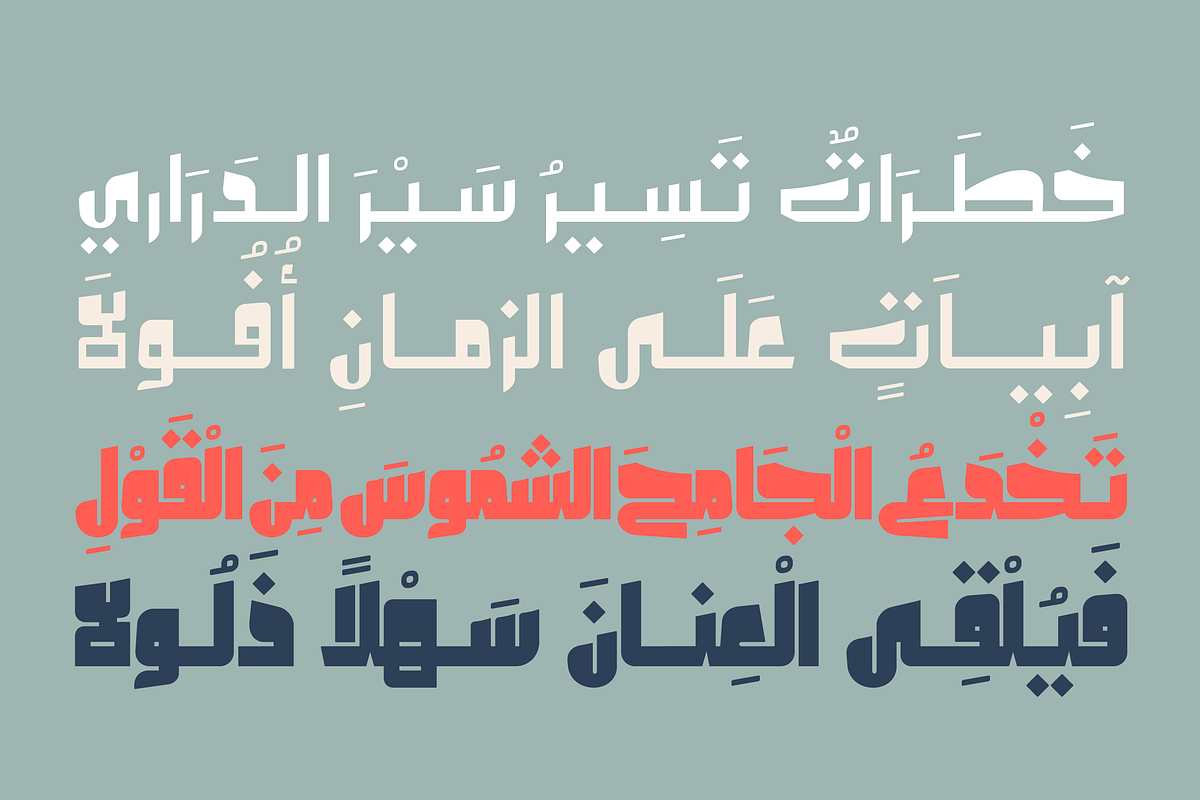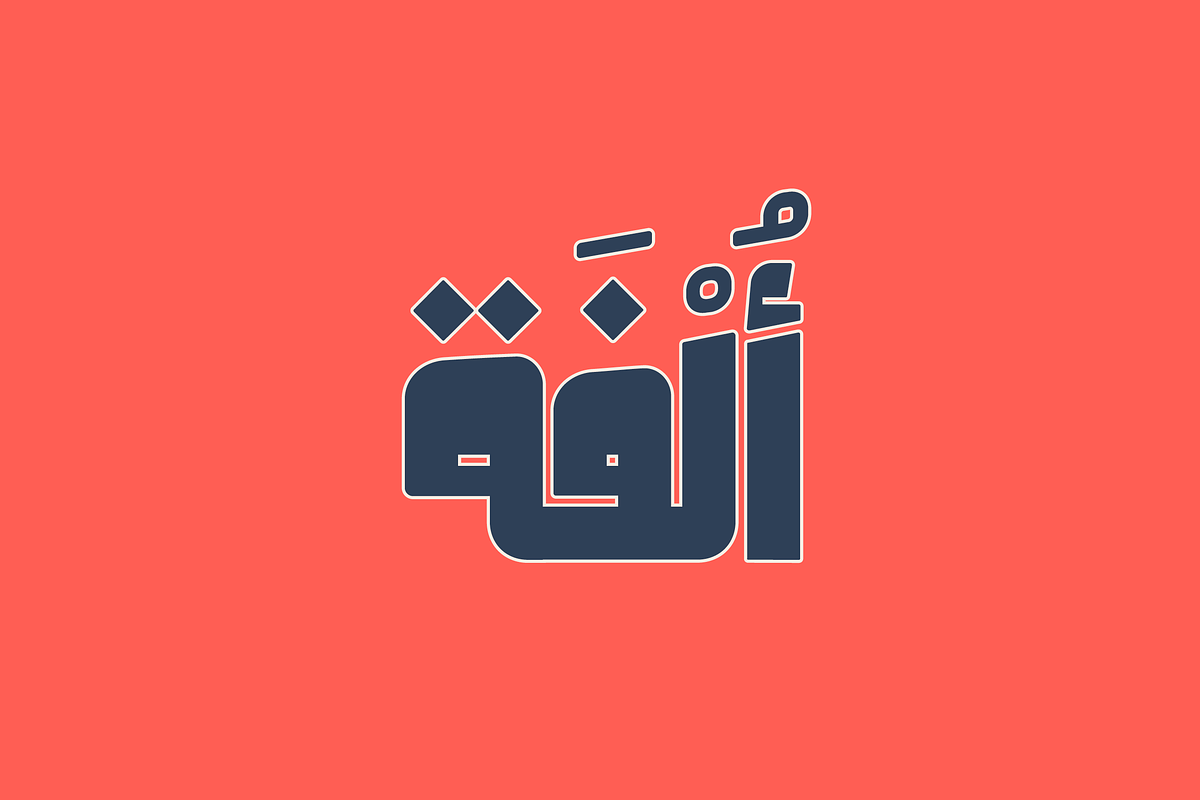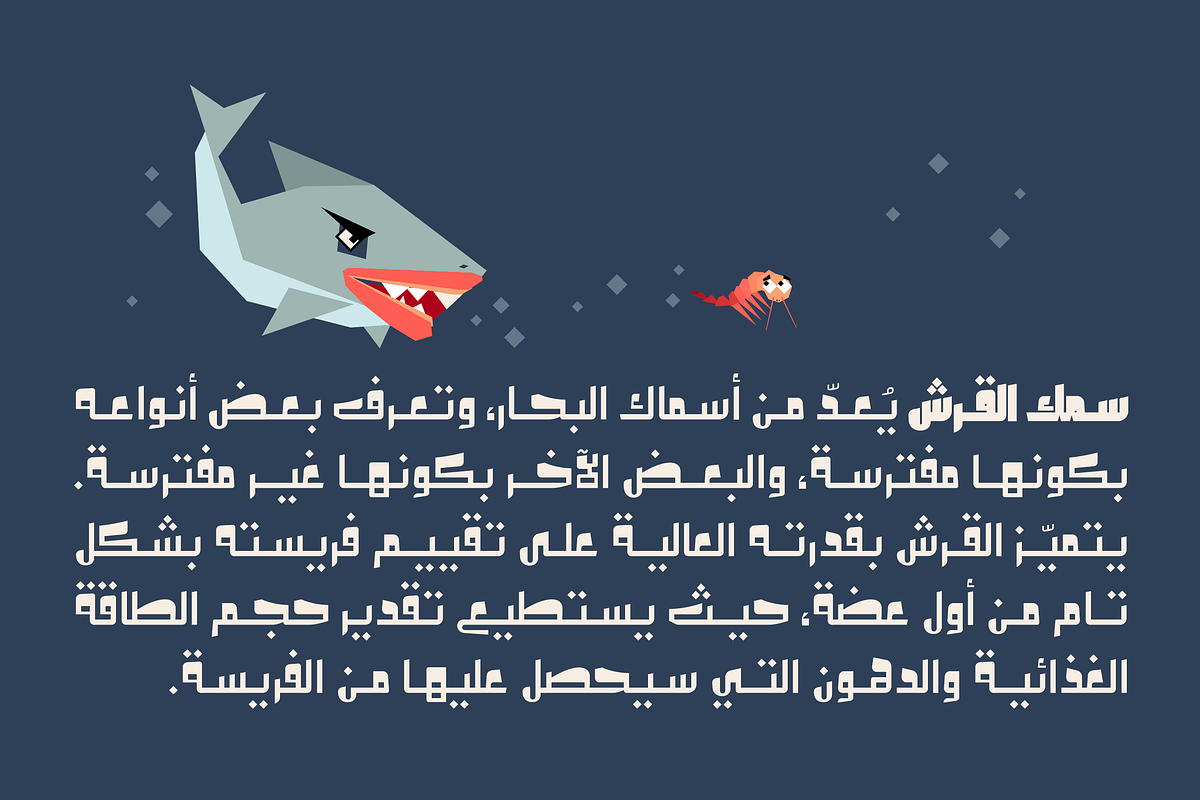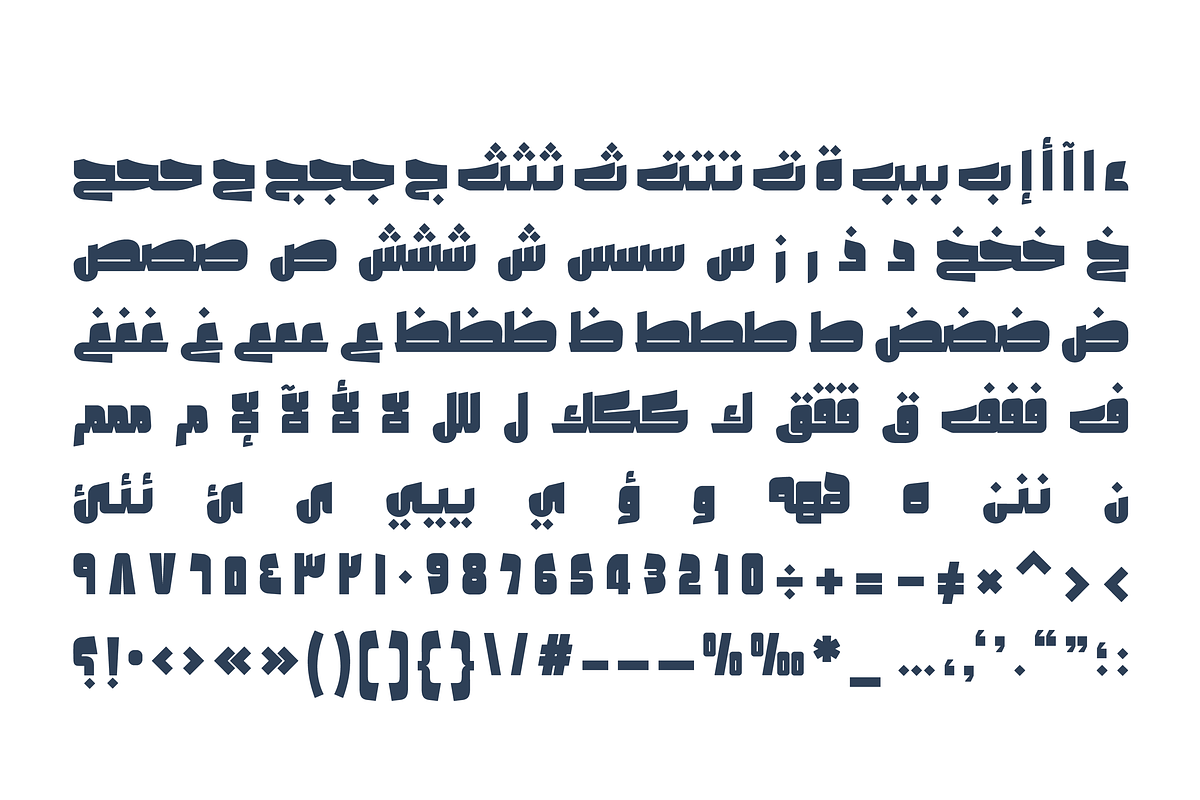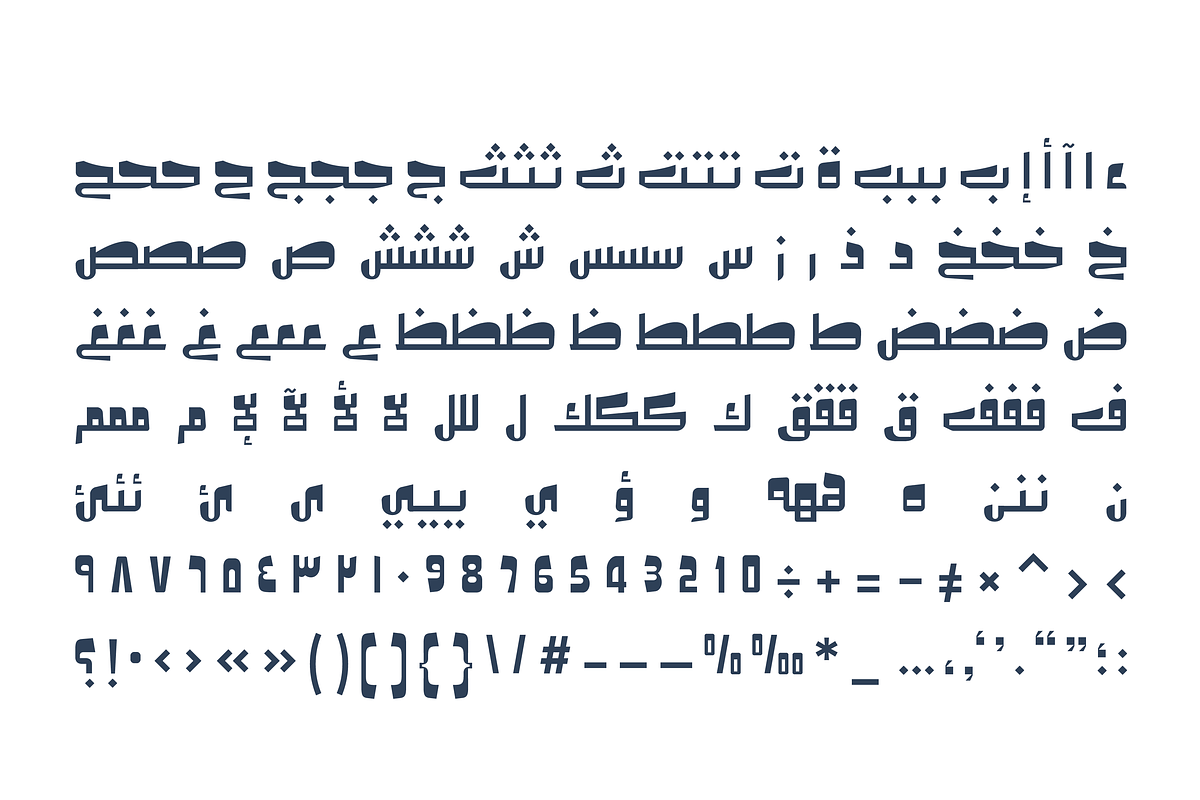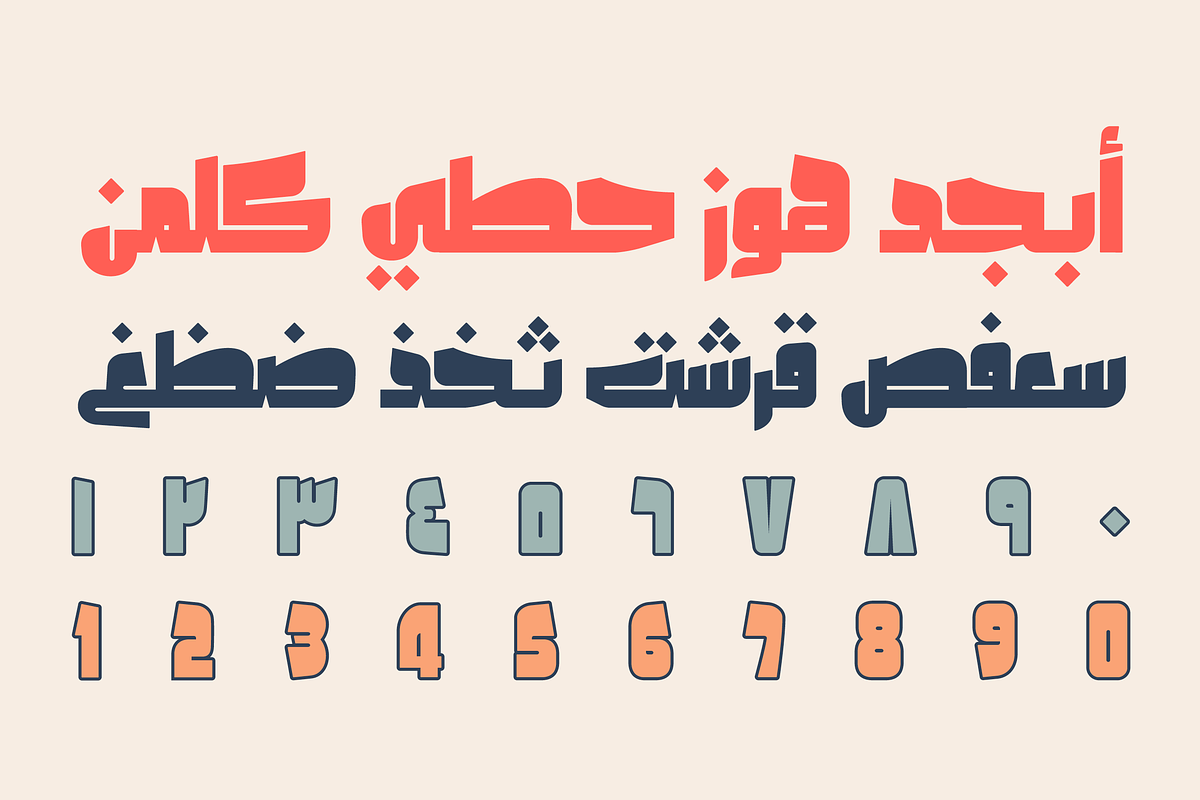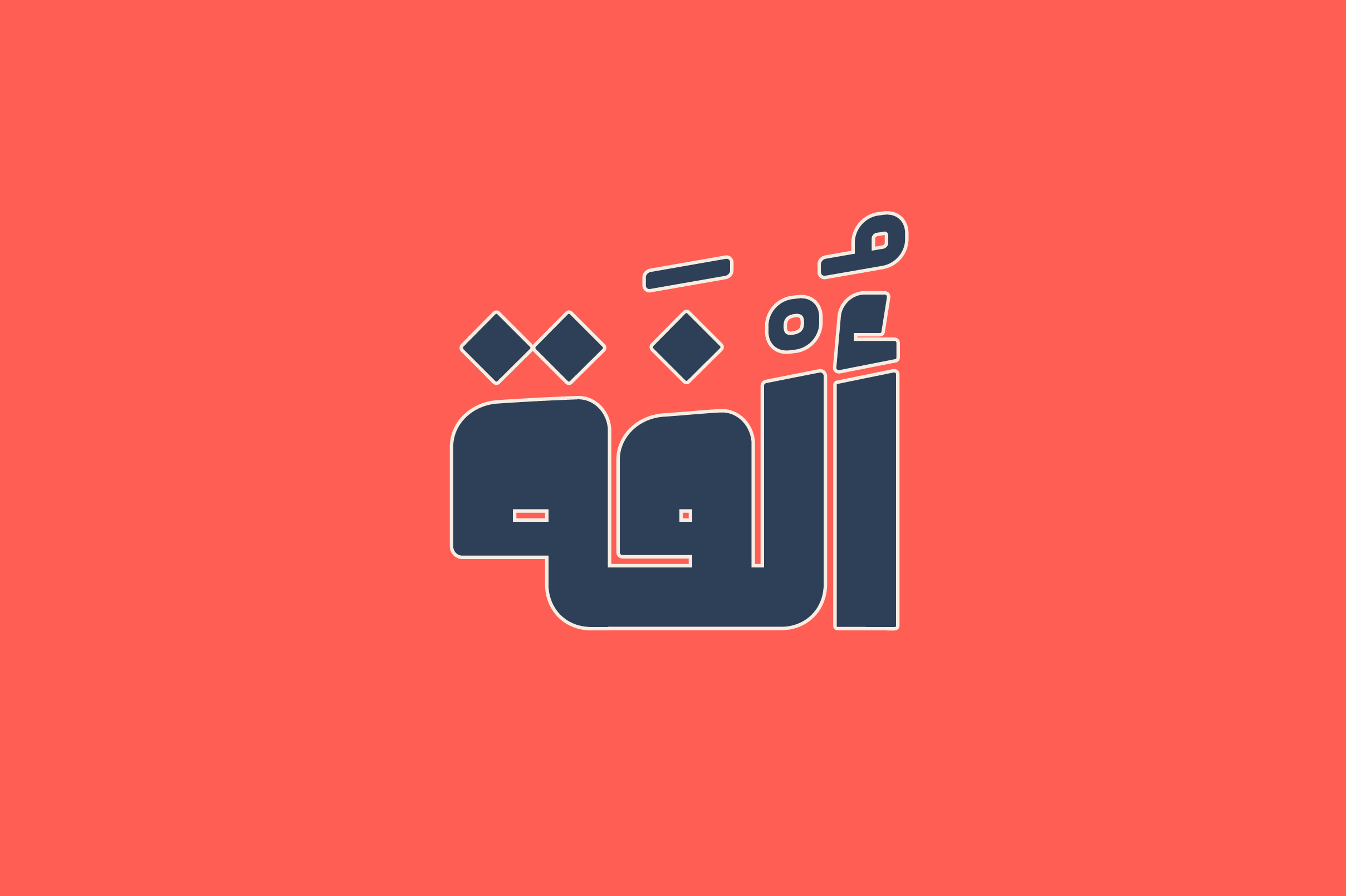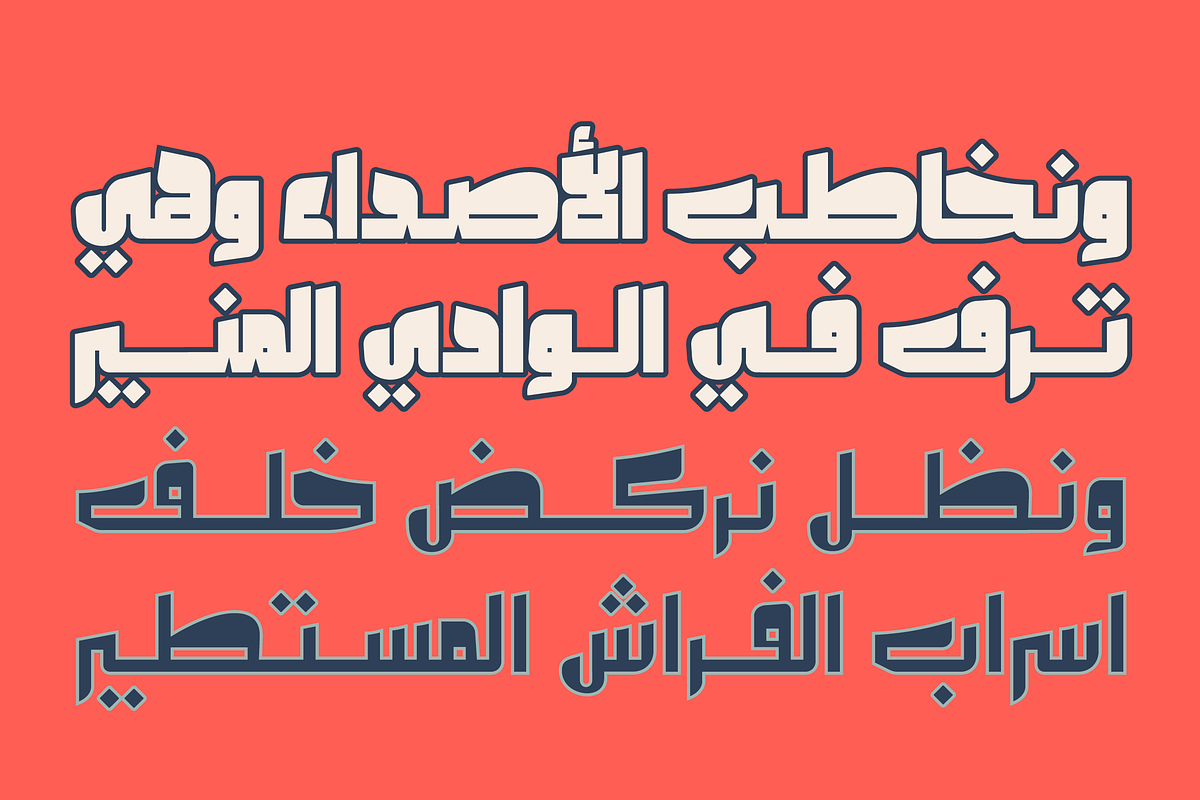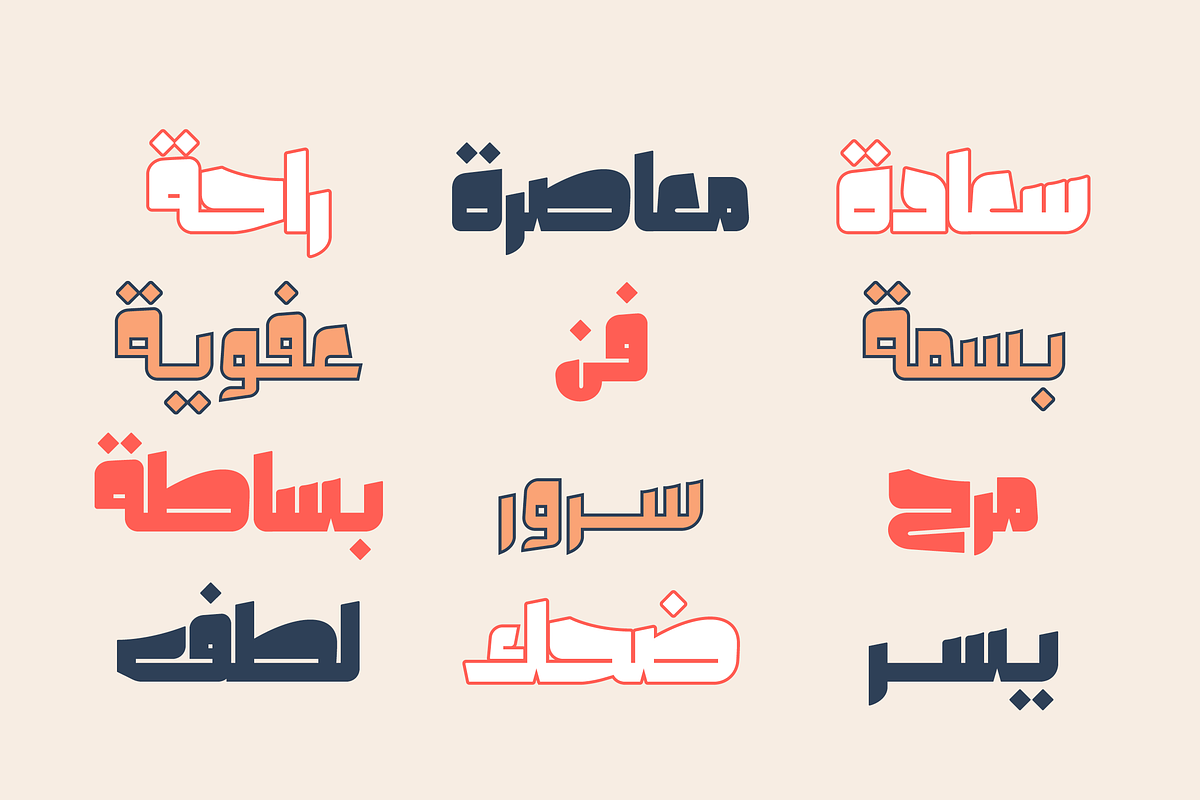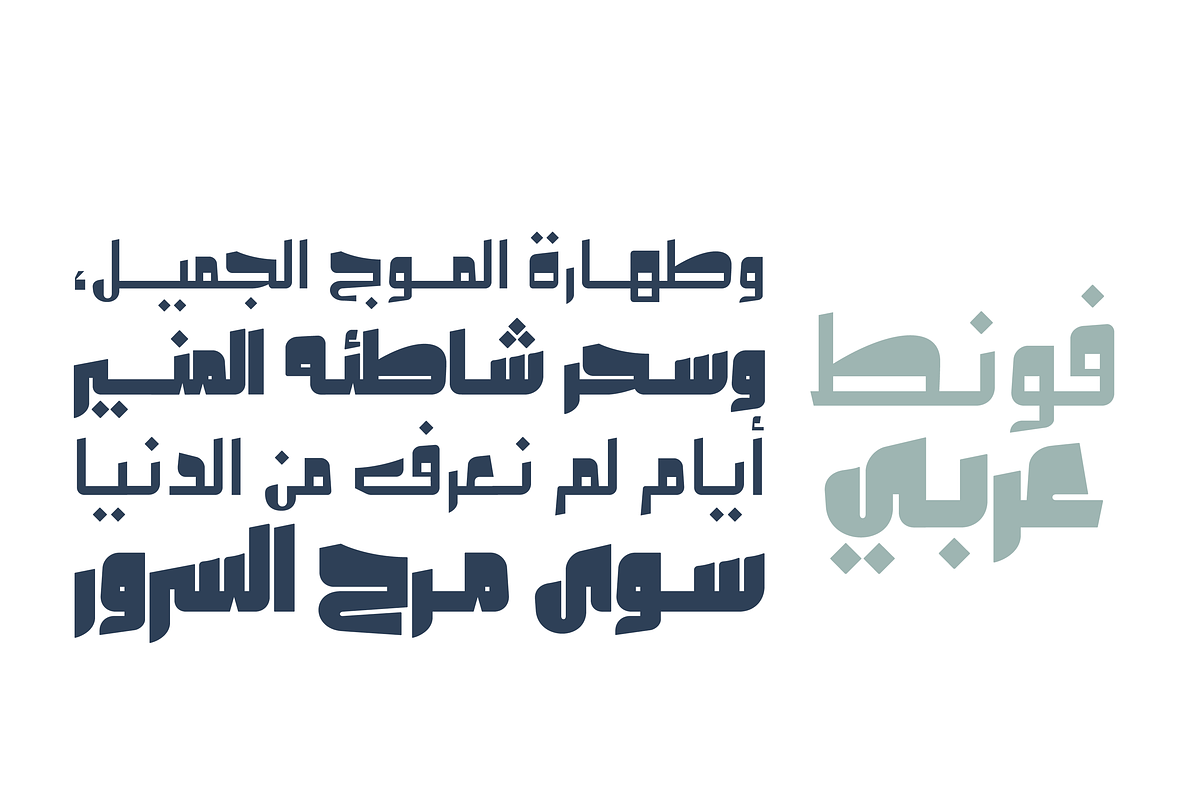
Olfah - Arabic Typeface
Olfah is an Arabic display font that features a friendly look with its casual style. The font suits advertising, infographics, web, print and creative headings. Olfah consists of two weights: Bold and Regular.